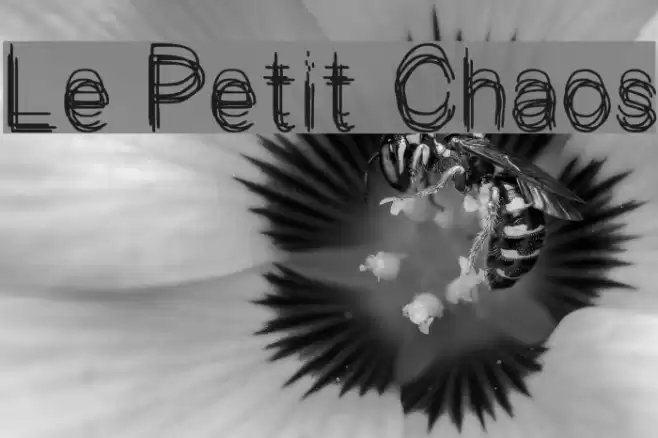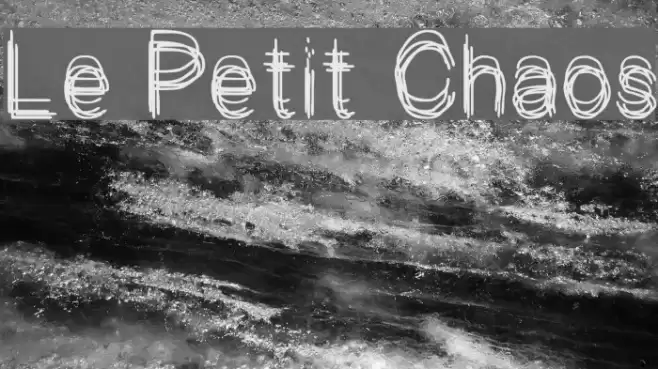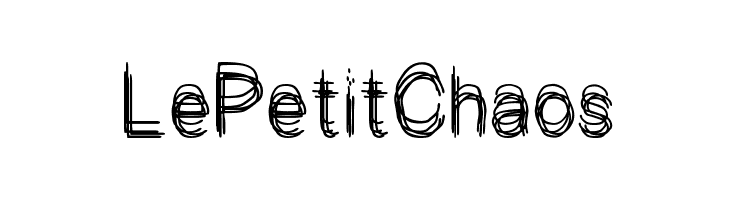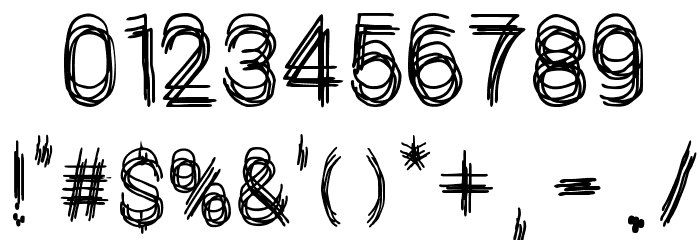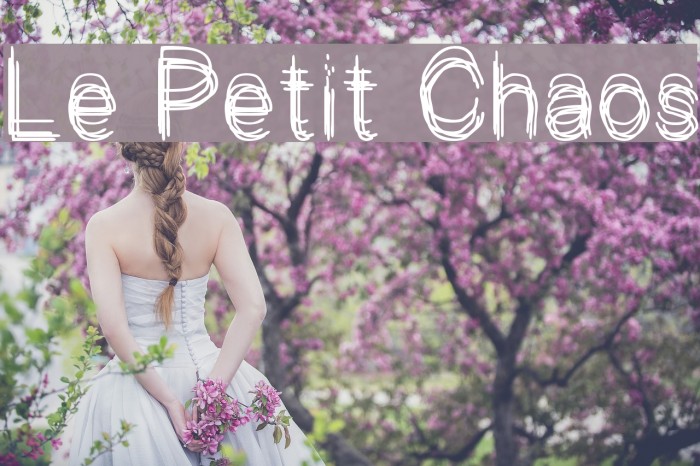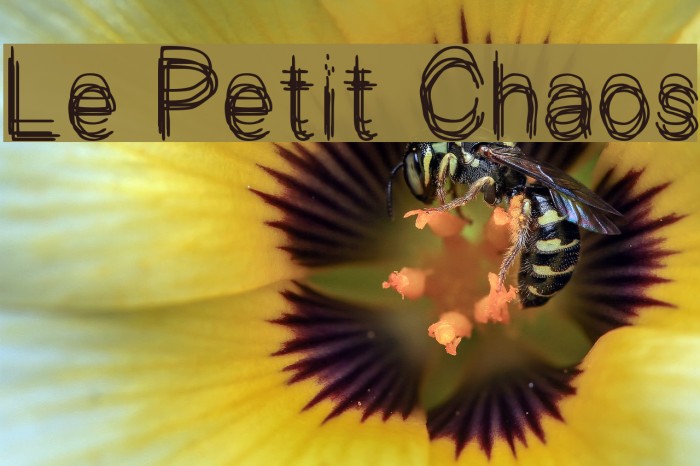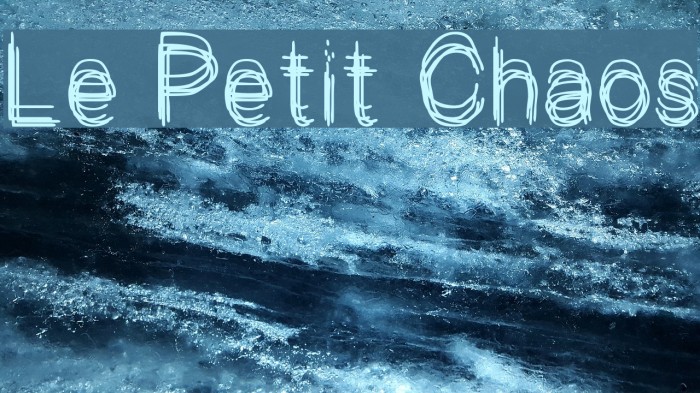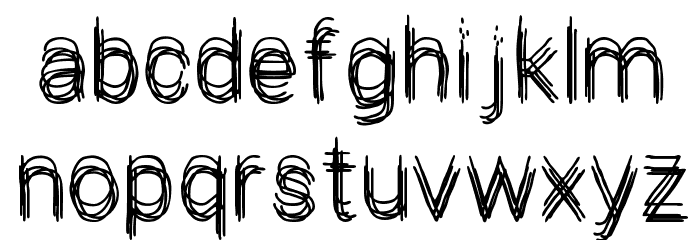
Le Petit Chaos Font
Le Petit Chaos Description
This font features a playful and chaotic design, characterized by its sketch-like appearance. Each character is composed of multiple overlapping strokes, giving it a hand-drawn and dynamic feel. The lines are uneven and vary in thickness, contributing to its energetic and informal style. Despite its irregularity, the font maintains a consistent structure across all characters, ensuring readability. The uppercase and lowercase letters share a similar aesthetic, with the numbers and special characters following suit. This font is ideal for projects that require a whimsical and artistic touch.
A playful, sketch-like font with overlapping strokes and a hand-drawn feel from Uncategorized fonts.
- Proposed Projects: Ideal for children's book covers, creative posters, artistic branding, and informal invitations.